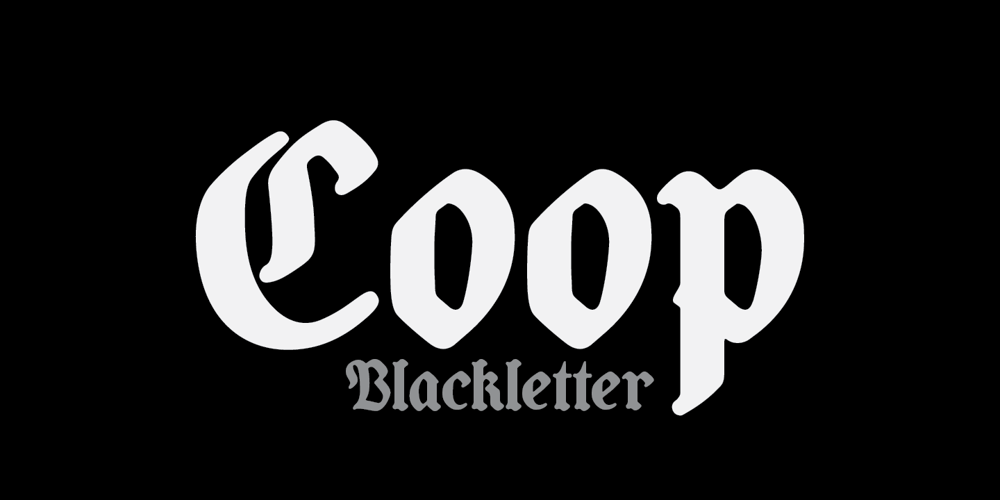
Coop Blackletter Font Family was designed by Alex Jacque and published by Alex Jacque. Coop Blackletter contains 1 styles and family package options. Coop Blackletter’s core concept was to create a more friendly blackletter typeface by pulling together two very different sources of inspiration. The design is a synthesis of the rounded, affable features and heavier weight of Cooper Black with the underlying composition and calligraphic contrast of a Fraktur. It’s kinda chunky, soft around the edges, and not entirely unreadable.